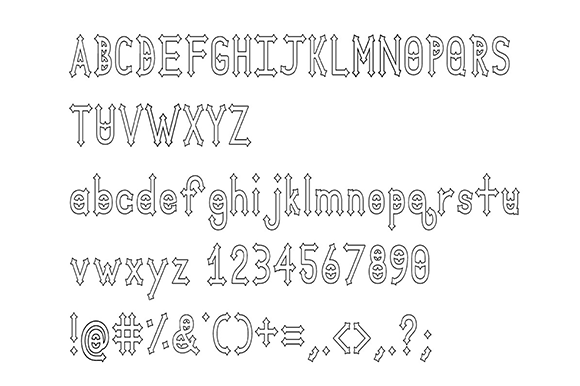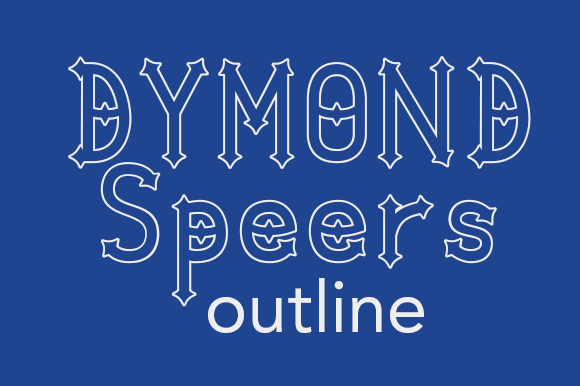
Introduction to Dymond Speers Outline Font
This is the β€œGhost” version of the Dymond Speers β€œSolid” version.
Use to give a decorative touch to your designs .
Dymond Speers Outline Font offers exceptional quality and versatility, making it a valuable addition to your design toolkit. Whether you’re creating for personal projects or commercial use, Dymond Speers Outline Font delivers professional results.